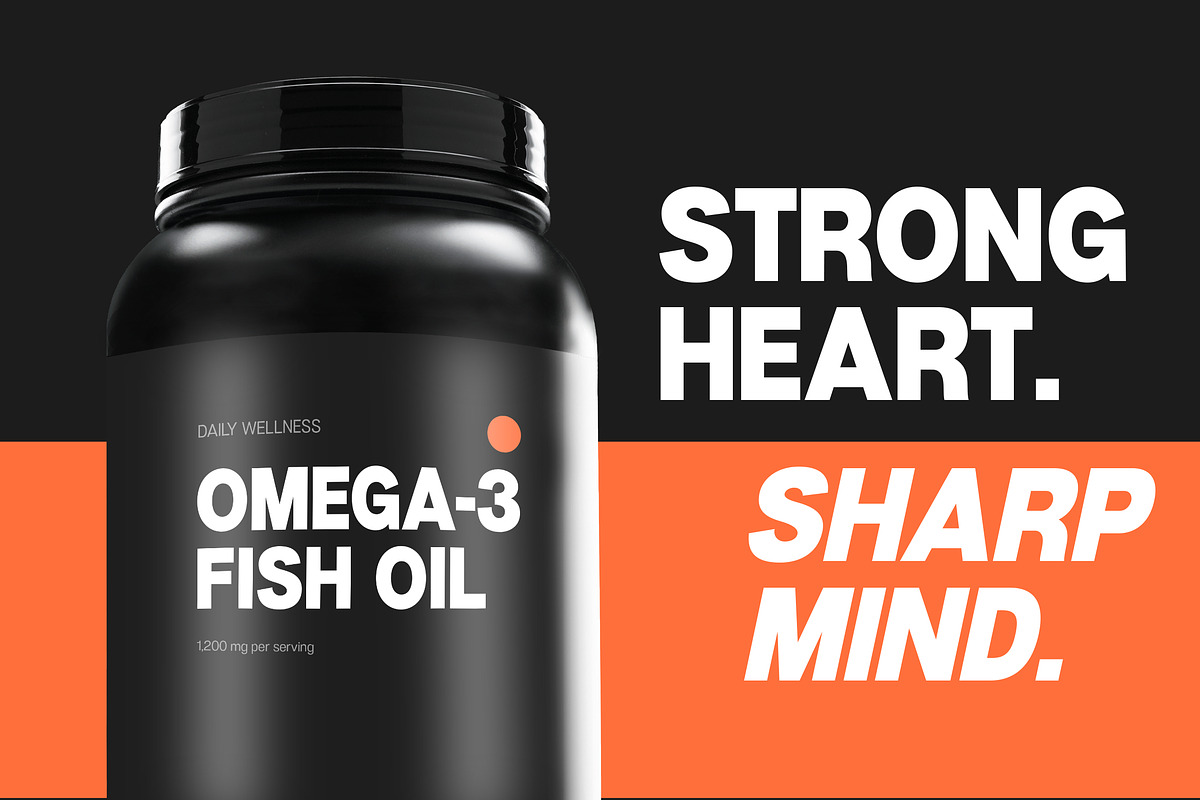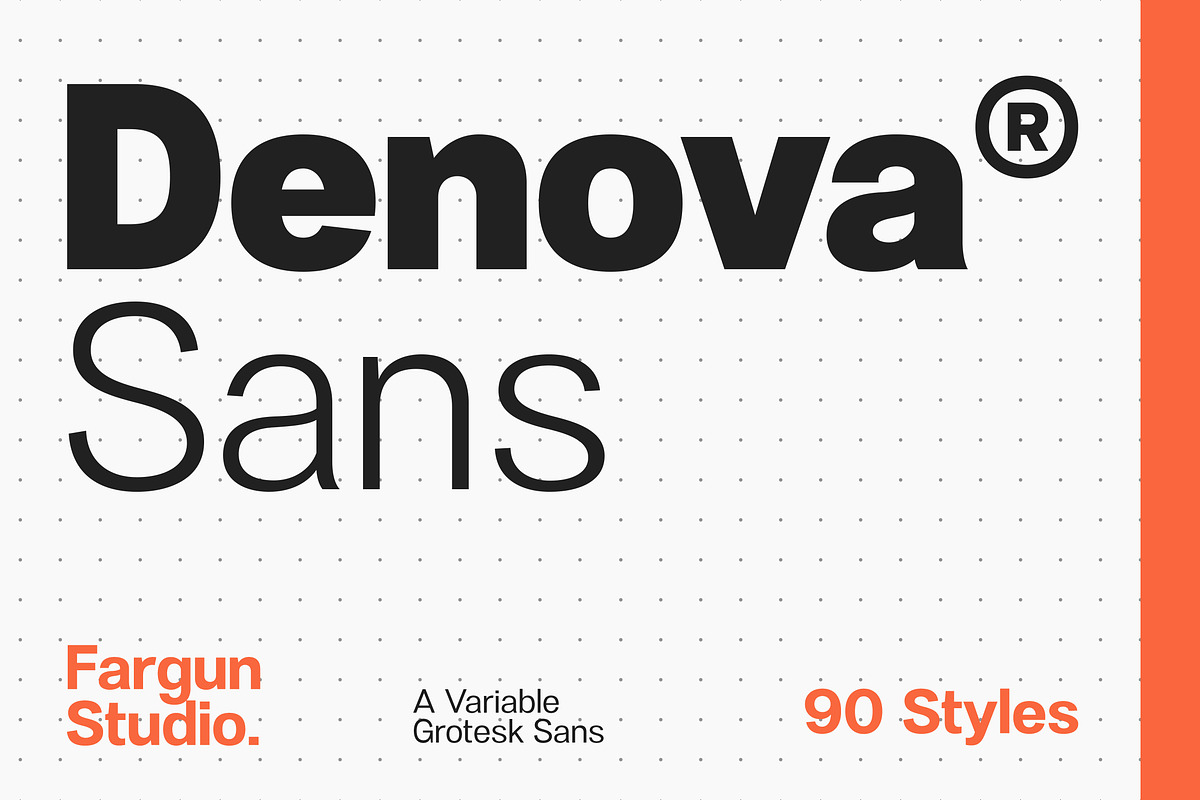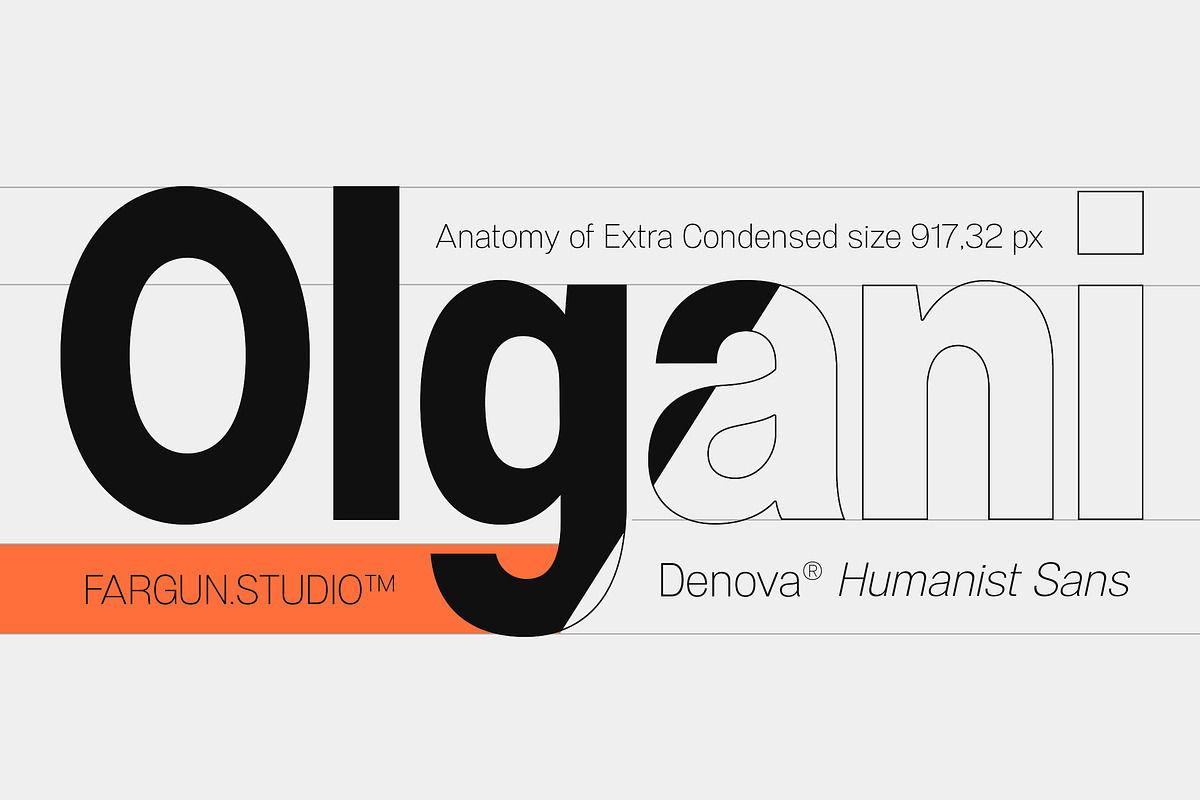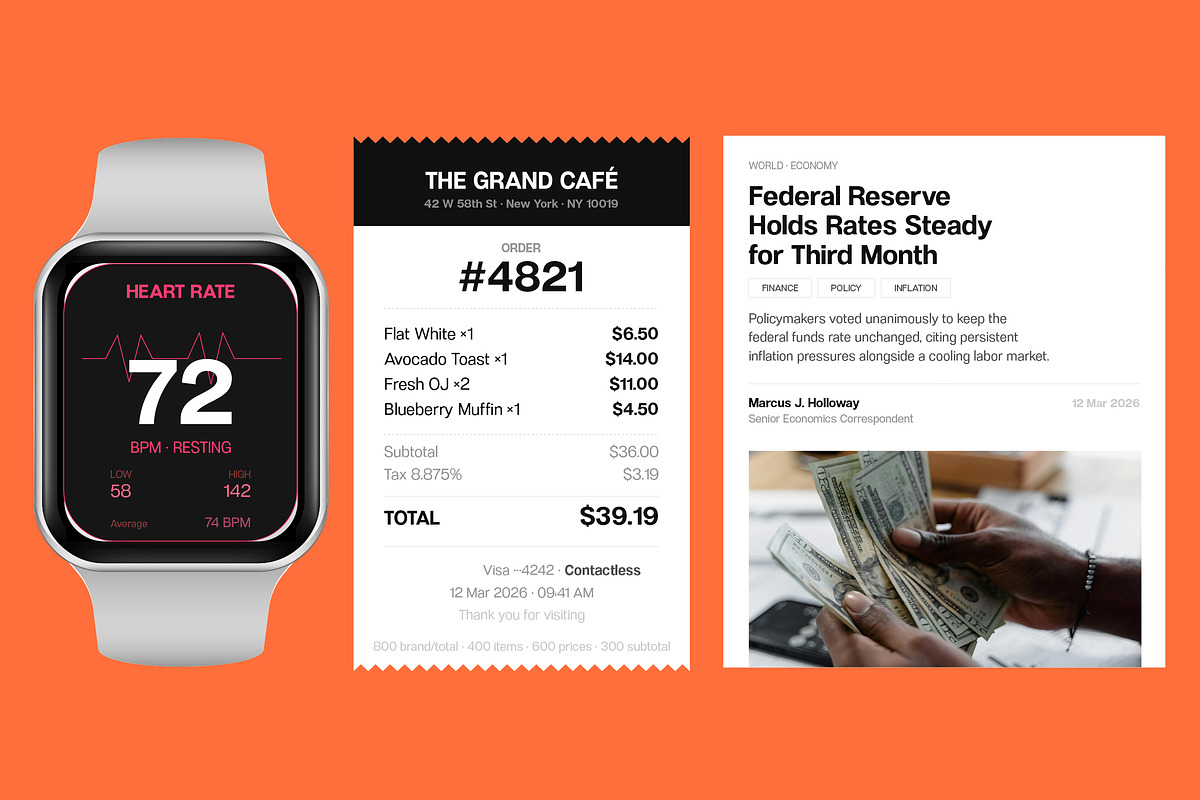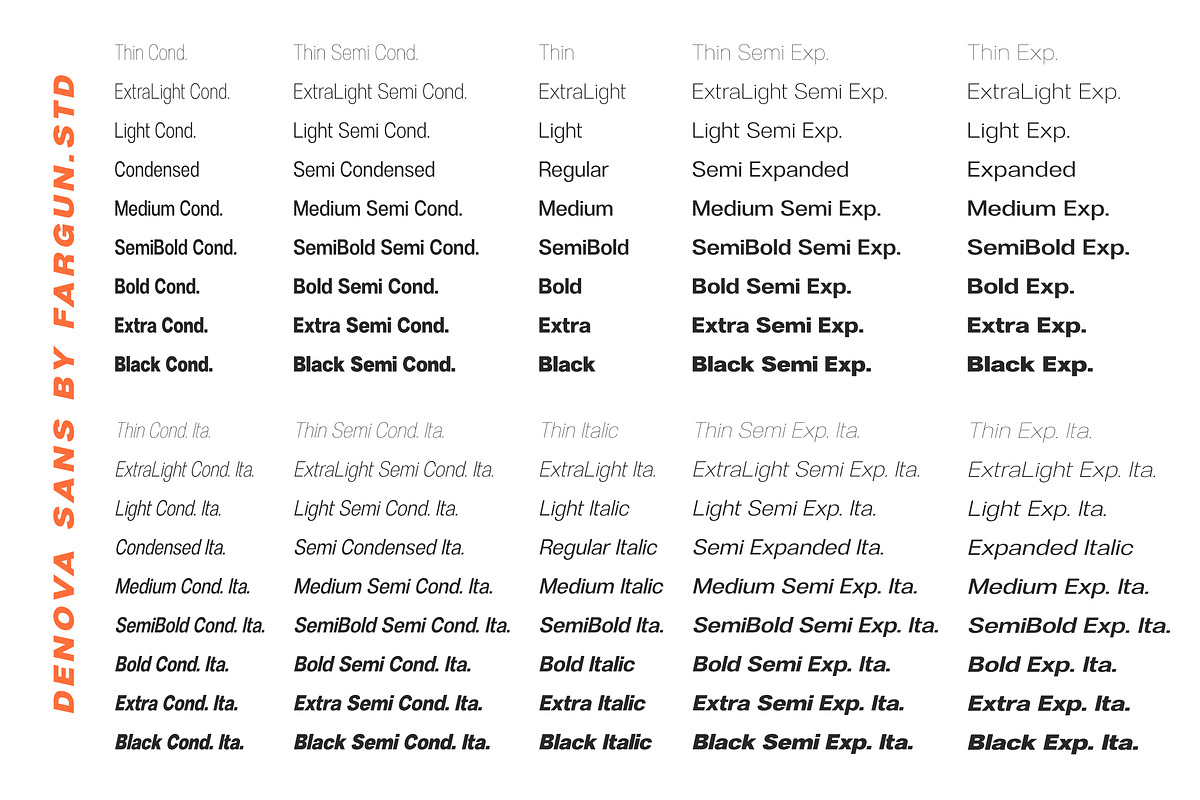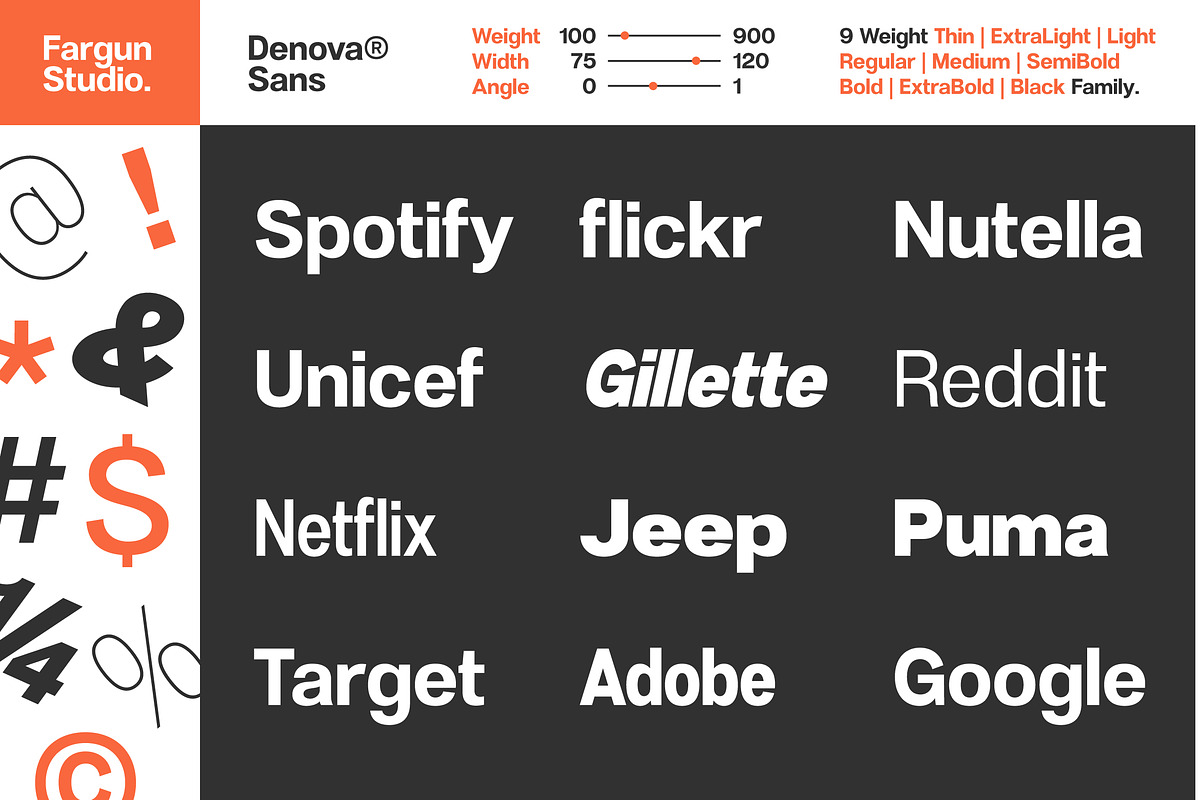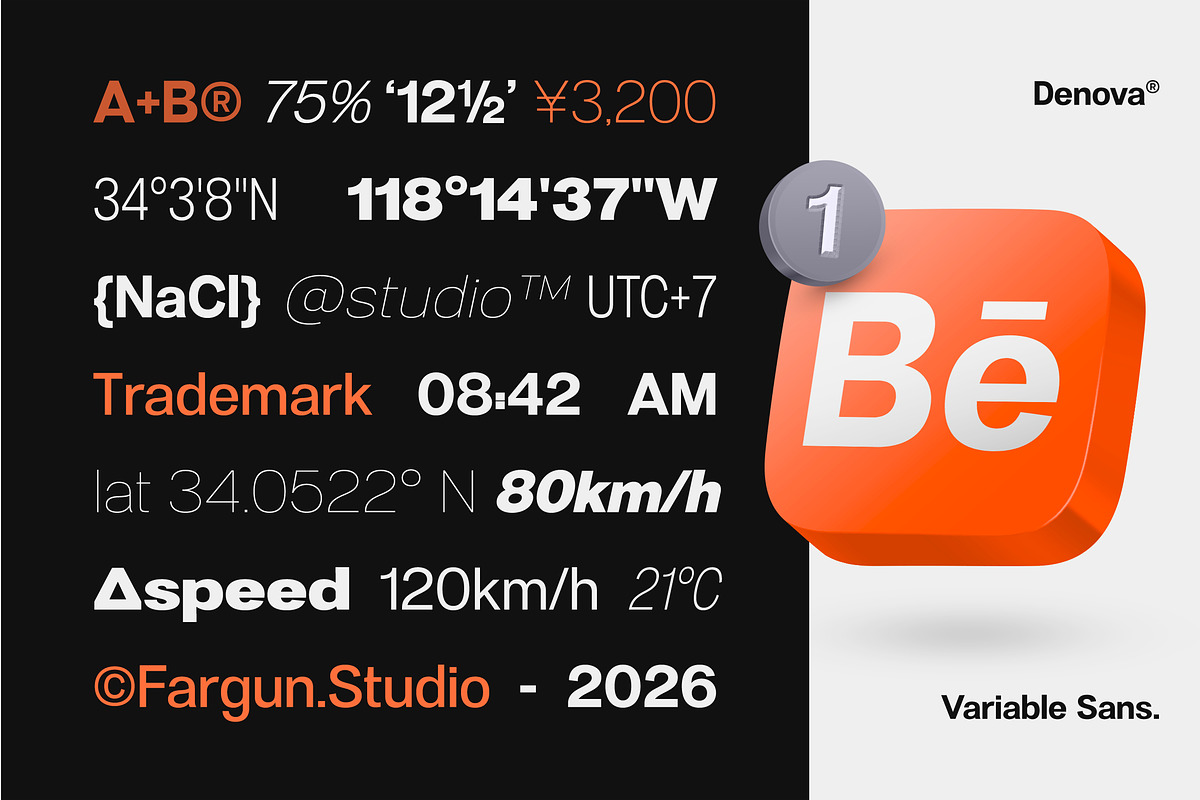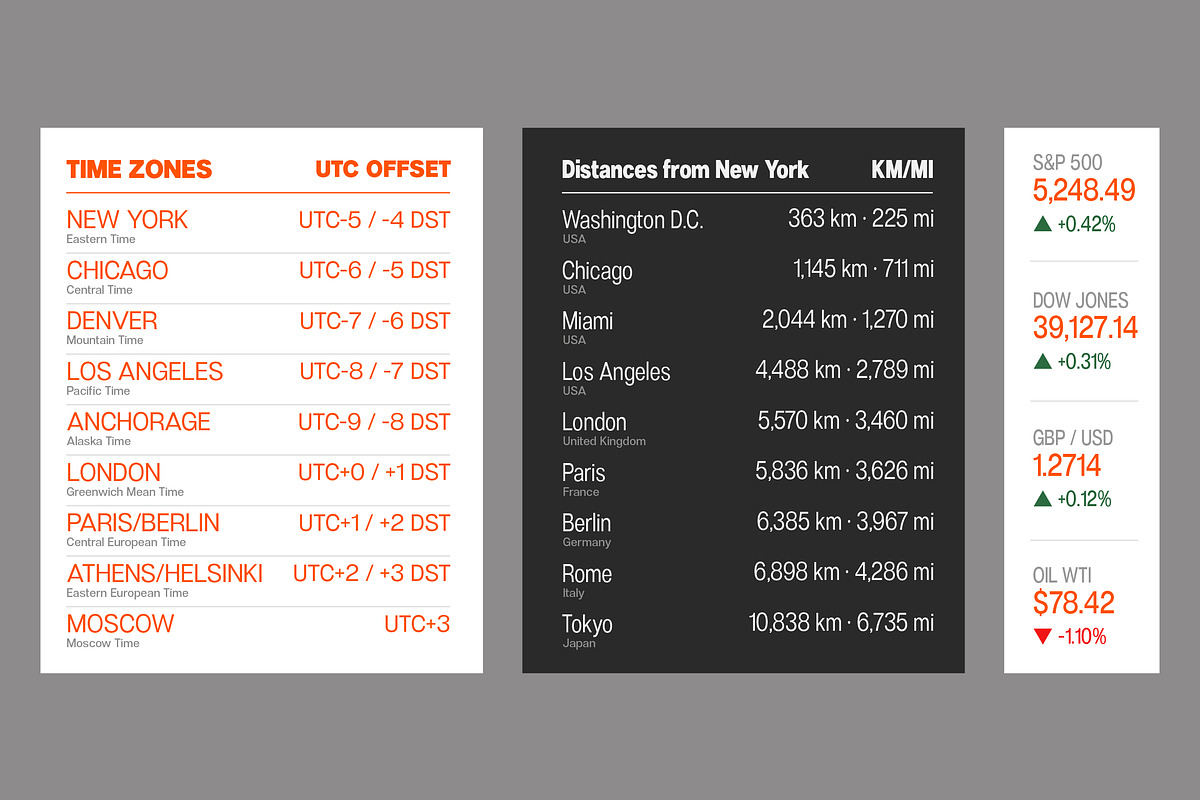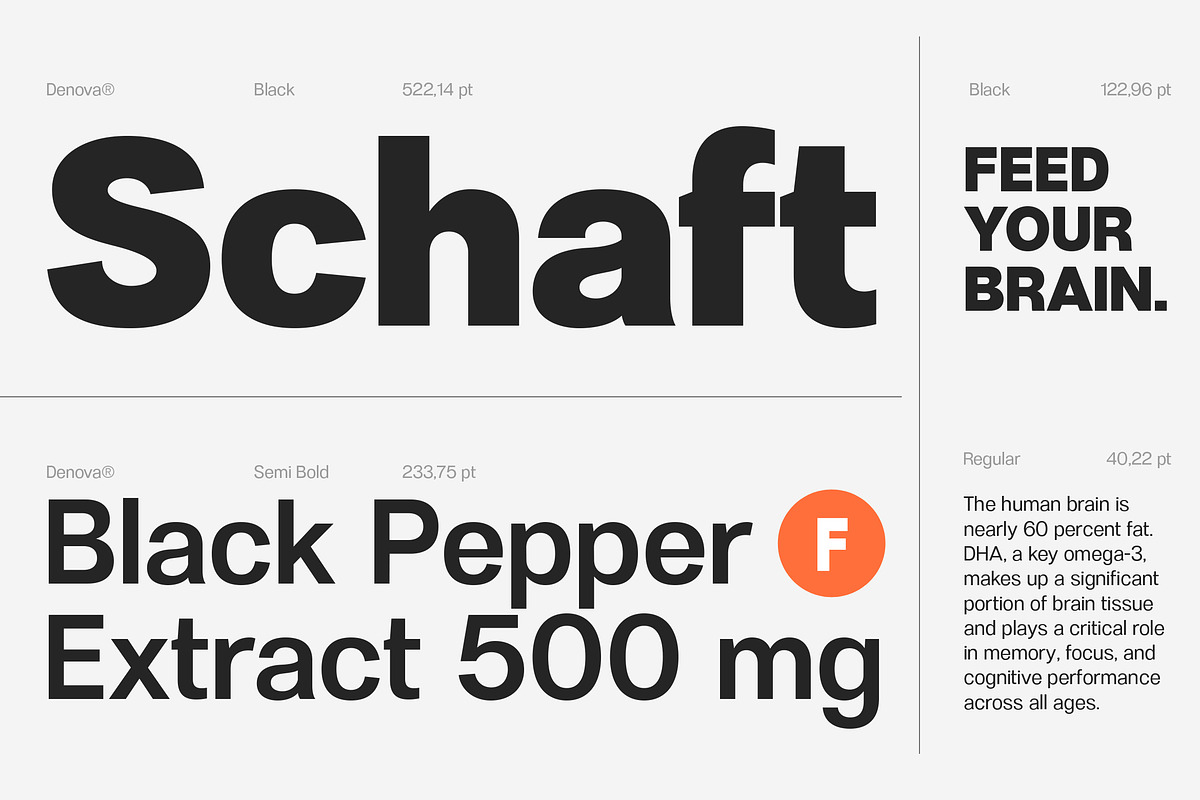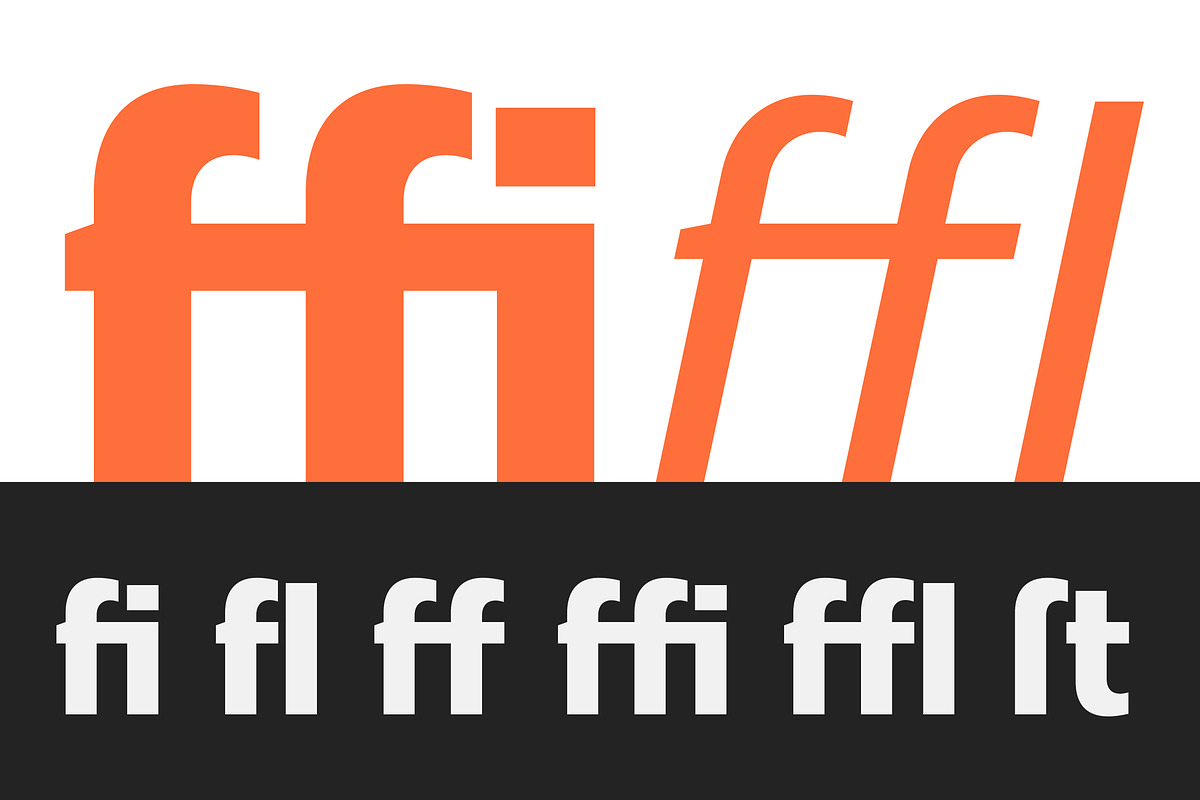
Denova - Variable Grotesk Sans
Denova is a contemporary grotesque sans serif designed for clarity, flexibility, and modern communication. Built with carefully refined proportions and open letterforms, it delivers excellent readability in both print and digital environments.
While rooted in the classic grotesque tradition, Denova introduces subtle humanist influences that soften its structure, creating a tone that feels both professional and approachable. The result is a versatile typeface suited to a wide spectrum of applications from branding and editorial design to user interfaces, advertising, and corporate identity systems.
The family includes 90 styles across Upright and Italic, offering an extensive range of weights and widths. This breadth allows designers to construct clear typographic hierarchies while maintaining visual consistency across complex design systems.
Meticulous spacing, balanced contrast, and carefully crafted details give Denova its distinctive character: precise and confident when used at large sizes, yet calm and highly readable in text settings.
Designed as a flexible typographic system, Denova adapts effortlessly from expressive headlines to refined body text, making it a dependable choice for contemporary design work.